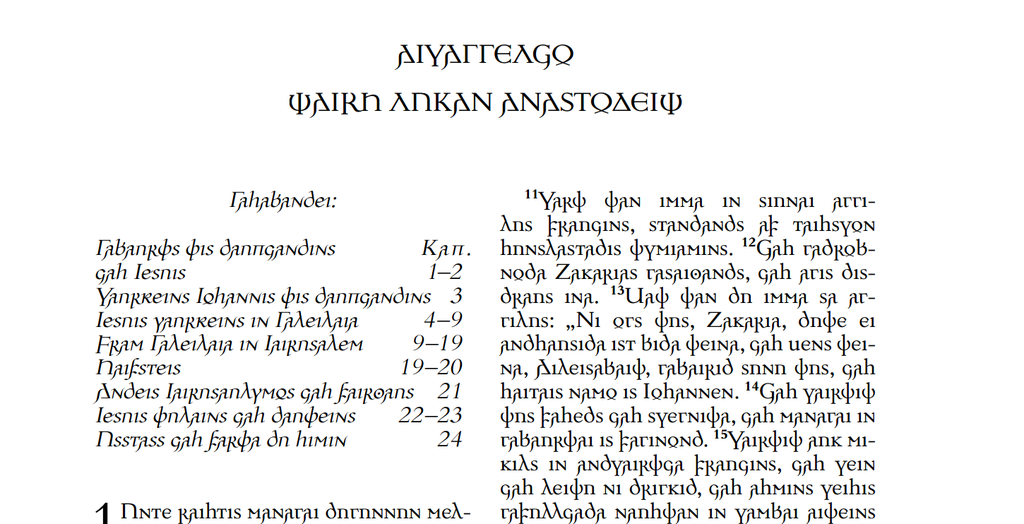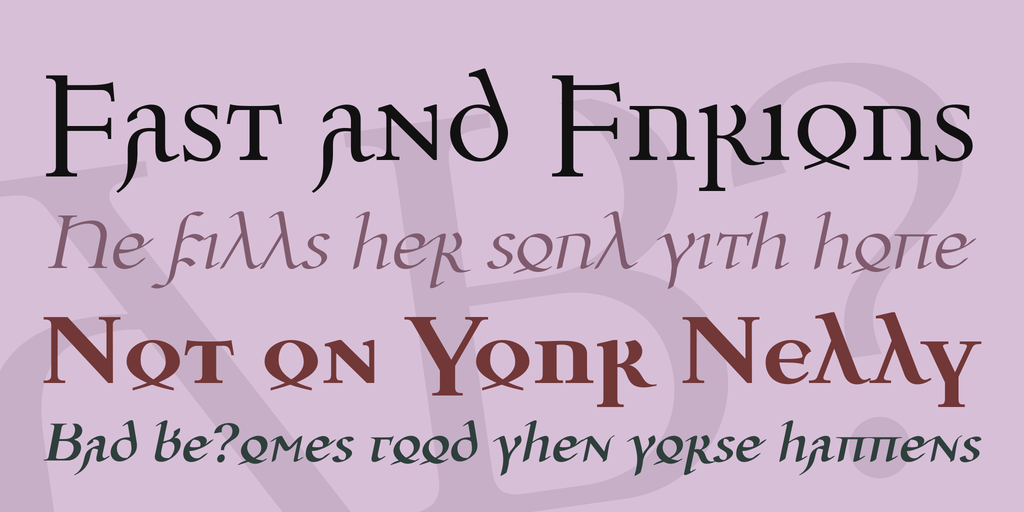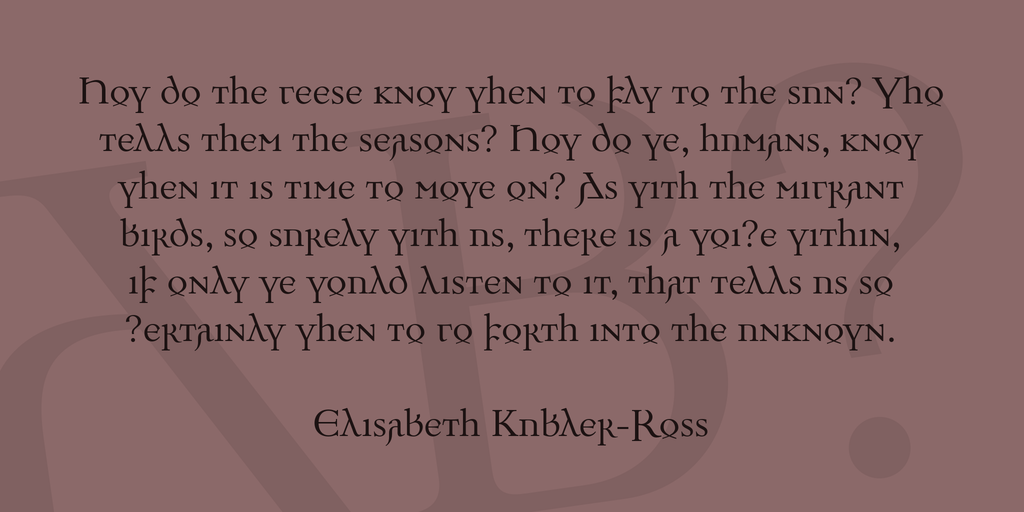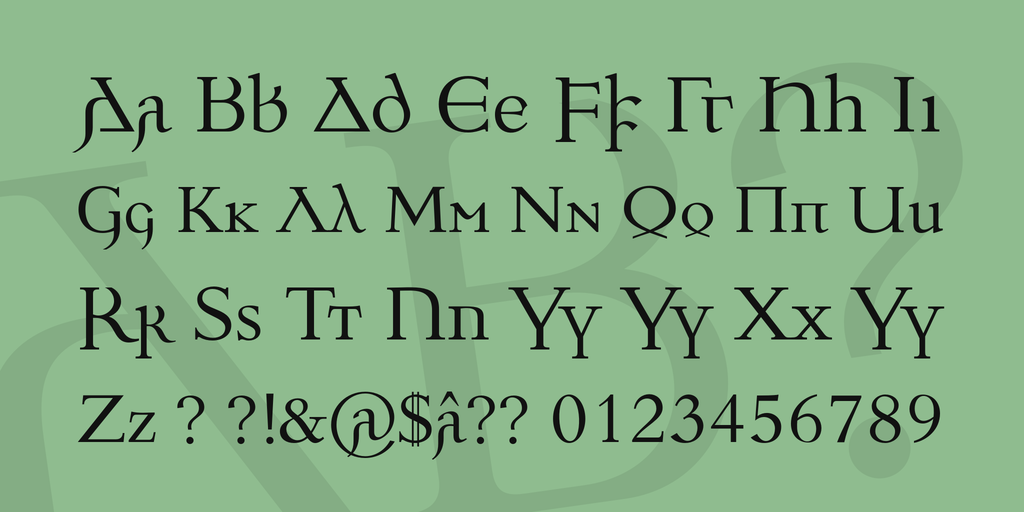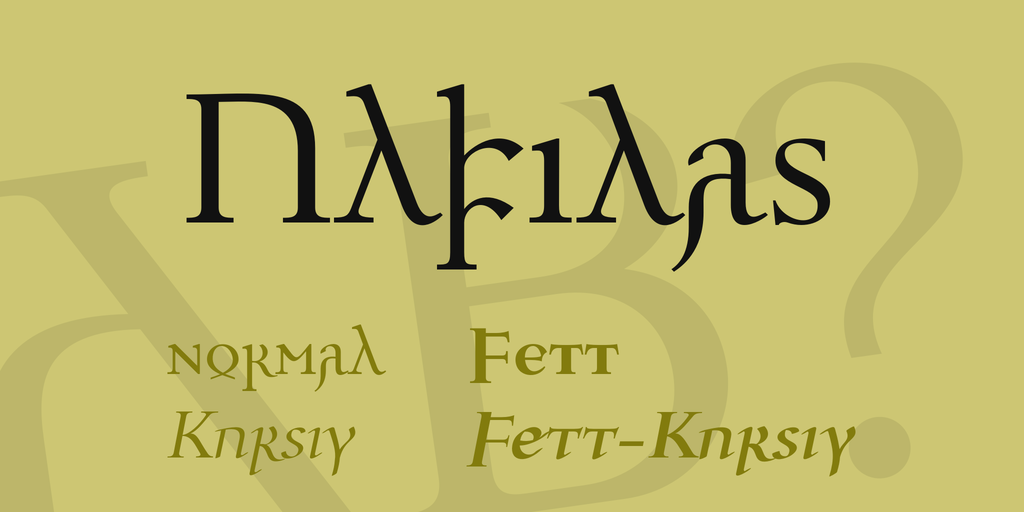
Ulfilas Font Family
Ulfilas (after Bishop Wulfila, the creator of the Gothic alphabet) is the most extensive of my Gothic fonts. There are four typefaces: standard, bold, italic and bold-italic. To allow writing in programs that don’t support the high Gothic Unicode range (as for example MS Word), the Gothic characters are mapped to the Latin range as well.
To satisfy today’s requirements, this font contains uppercase- as well as lowercase letters, although there were only capital letters in historic Gothic. The minuscules of this font have been derived from those majuscules. Doing so wasn’t particularly difficult, as the Codex Argenteus’ uncial script already shows attempts of ascenders and descenders. The relation between Latin and Greek upper- and lowercase letters gave me further aid.
Accordingly, the Gothic Unicode range has room for either upper- or lowercase letters, but not for both. Hence, I’ve placed the uppercase letters into the private use area. When using the Gothic keyboard layouts offered here as well, they can be accessed as usual by holding shift.